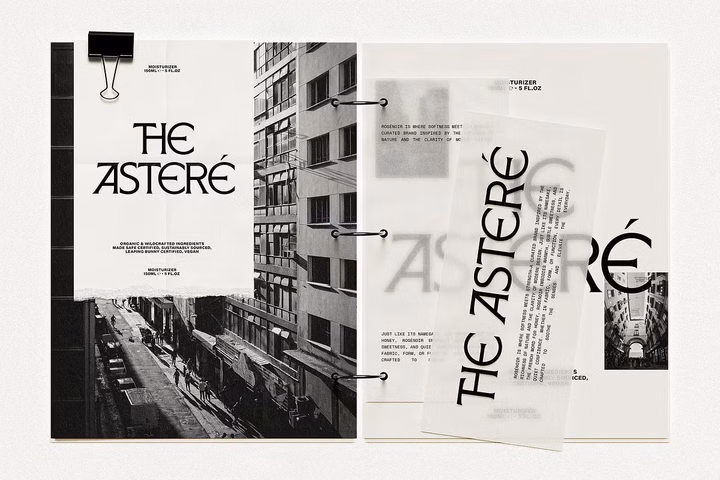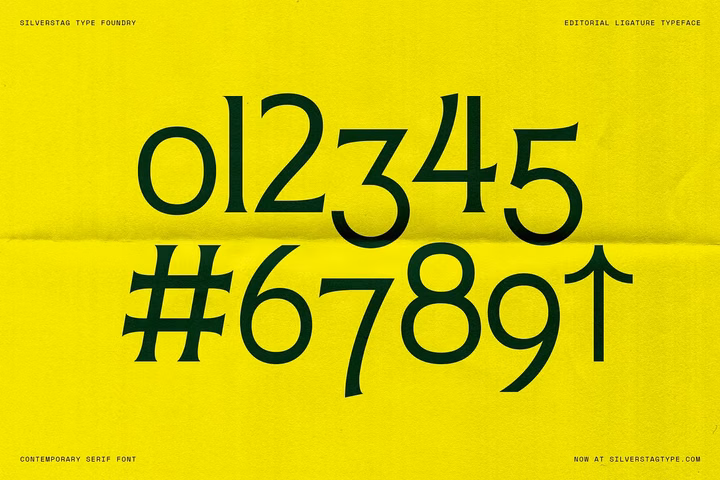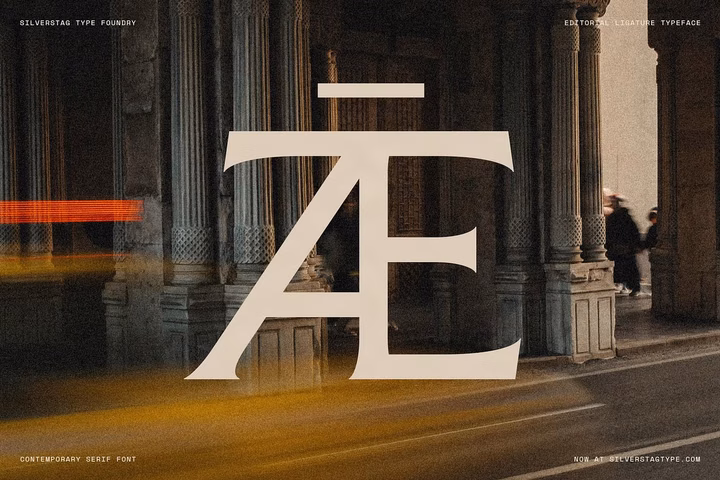
Arcilla is a modern serif typeface built for designers who want a strong editorial look with a distinct visual character. It blends clean structure with sculpted details to create a serif that feels refined, stylish, and highly usable across branding and creative projects.
Arcilla features sharp angles, smooth curves, and thoughtfully designed terminals that give it a recognizable silhouette in logos, titles, and display applications. Its ligatures and alternates add extra expression and allow you to create custom wordmarks without additional lettering work. The overall design balances elegance and simplicity, making it an excellent choice for fashion brands, lifestyle products, packaging, print magazines, social media graphics, and contemporary visual identities.
The typeface includes uppercase and lowercase characters, numerals, punctuation, multilingual support, and a curated set of ligatures that enhance its display potential. Arcilla performs well in large formats but also maintains clarity in smaller editorial settings, giving designers flexibility across layouts.